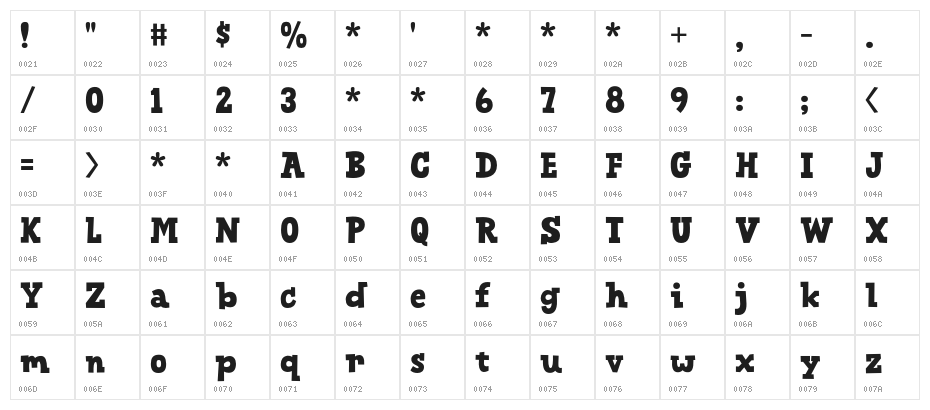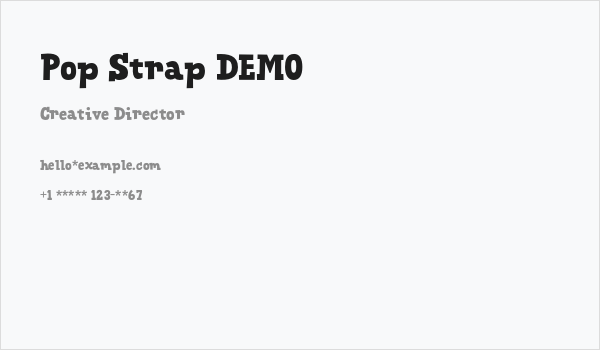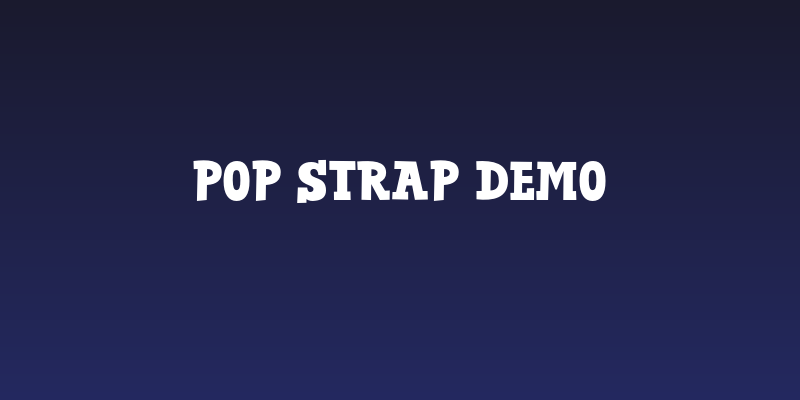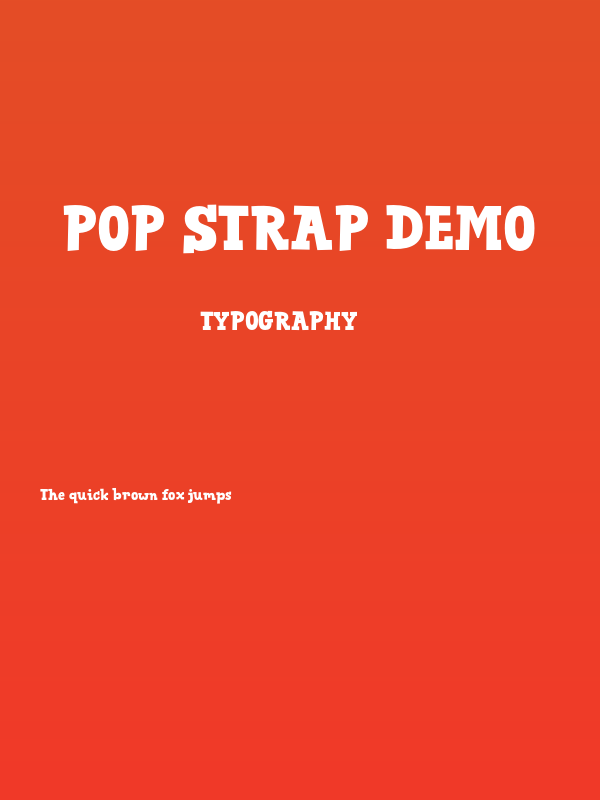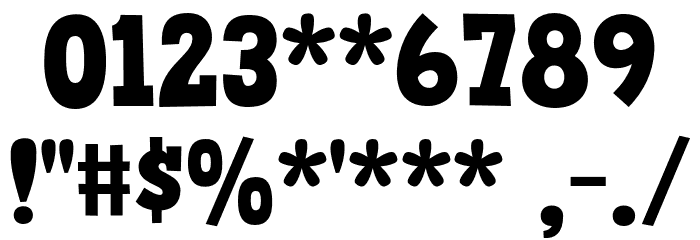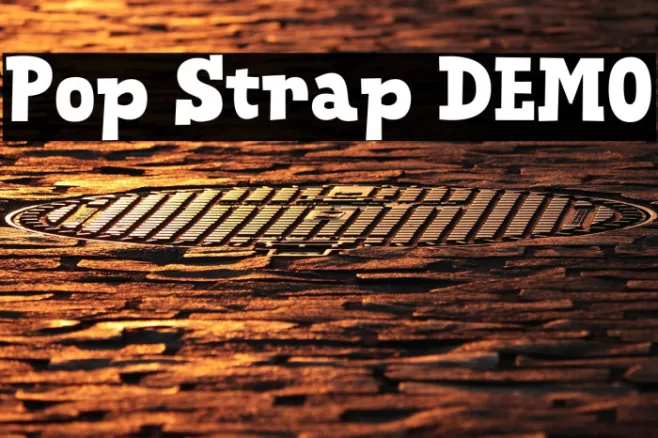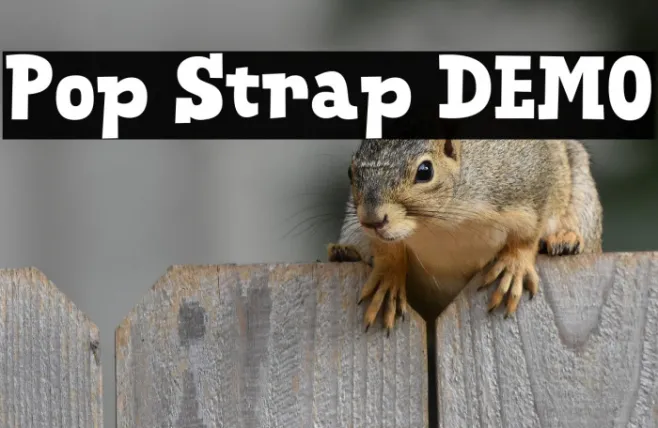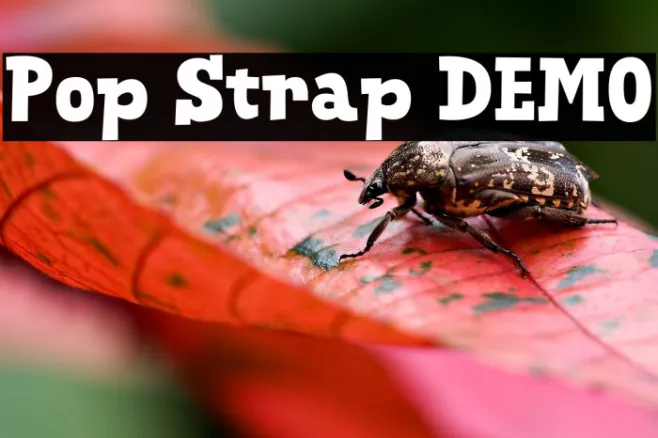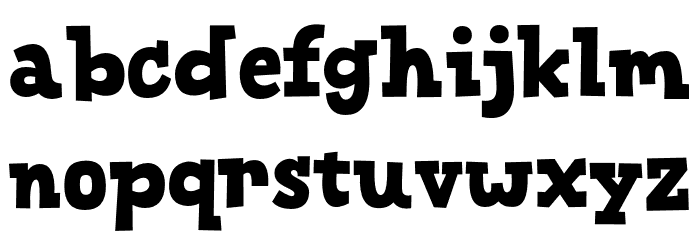
Pop Strap DEMO Font
Pop Strap DEMO Description
This font features a bold and playful design with thick, rounded strokes that give it a friendly and approachable appearance. The uppercase letters are robust and slightly condensed, while the lowercase letters maintain a consistent weight, offering a harmonious balance. The numerals are equally bold, ensuring visibility and impact. Special characters are designed with the same playful style, making them stand out. The overall look is reminiscent of retro or vintage styles, yet it maintains a modern touch with its clean lines and smooth curves.
| Width | Condensed |
| Overall Style | Vintage, Modern |
| Proposed Projects | Ideal for children's books, playful branding, posters, and retro-themed designs. |